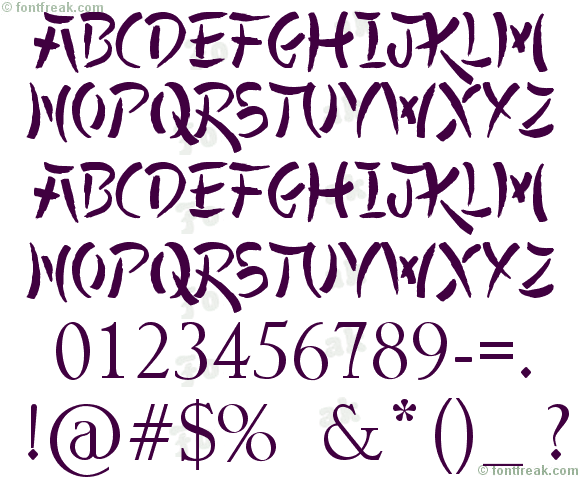
All Yoko
About All Yoko
All Yoko is a captivating display font designed by Jonathan S. Harris, characterized by its unique handwritten style that exudes an artistic flair. This font falls into the category of decorative fonts, making it a standout option for those looking to add a personal touch to their projects. The visual characteristics of All Yoko are defined by its irregular stroke weights and dynamic, flowing lines, which create a sense of spontaneity and creativity. The spacing is thoughtfully balanced, allowing for easy readability while still maintaining its artistic essence.
This font is particularly well-suited for a variety of creative applications. It shines in contexts such as wedding invitations, where its whimsical style can elevate the overall aesthetic. Additionally, All Yoko is ideal for movie posters, especially those aiming for a modern or indie vibe. Restaurant menus can also benefit from the font’s unique charm, providing an inviting look that draws patrons in. Small business owners looking to create distinctive branding materials will find this font useful in logos and promotional graphics, ensuring their marketing stands out.
What sets the All Yoko font apart is its ability to combine artistic expression with functionality. The handwritten aesthetic strikes a perfect balance between playfulness and sophistication, making it a valuable addition to any designer's toolkit. With the All Yoko font free download, you can easily incorporate this unique typeface into your next project, ensuring that your creative vision comes to life in a distinctive way.